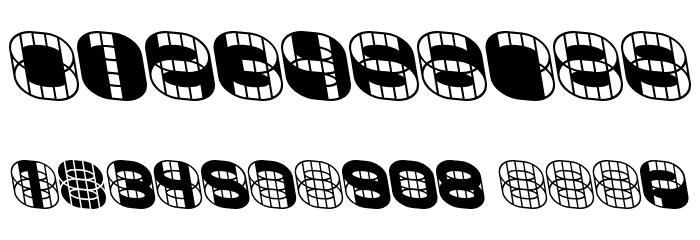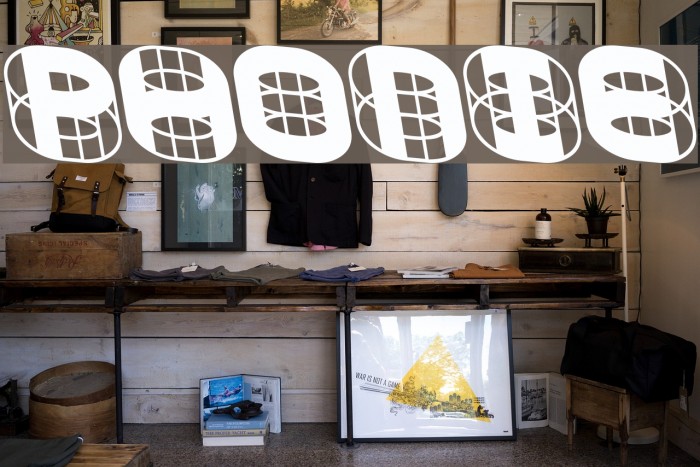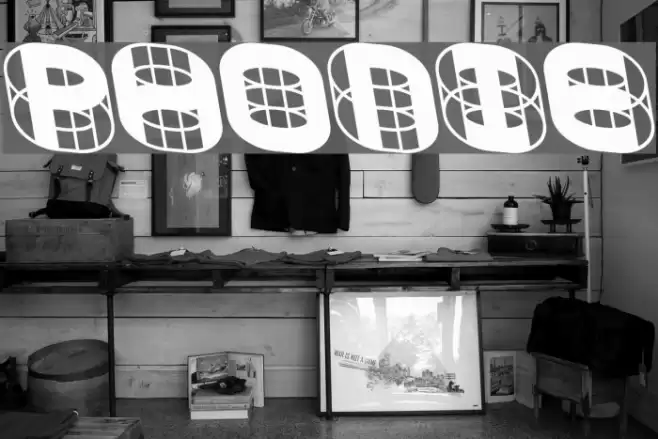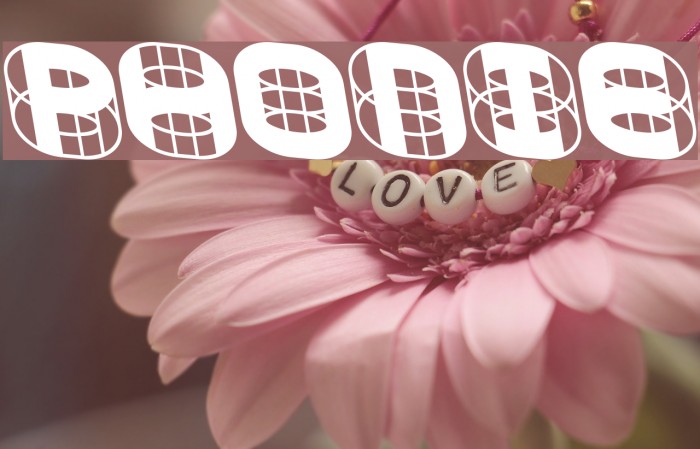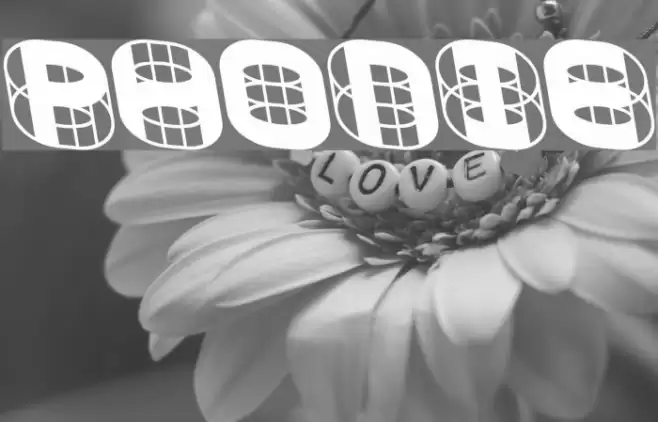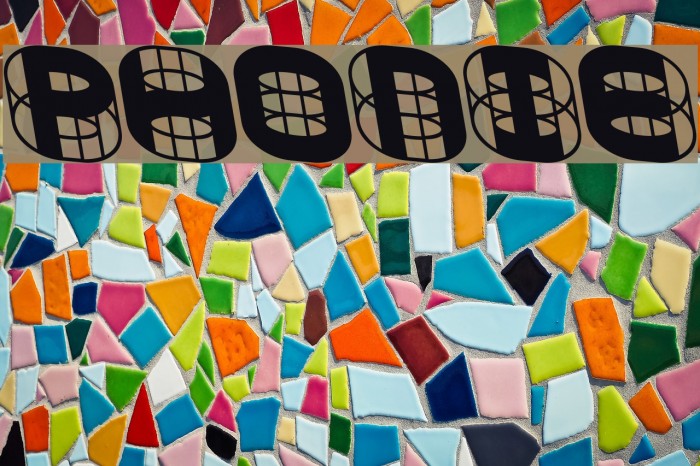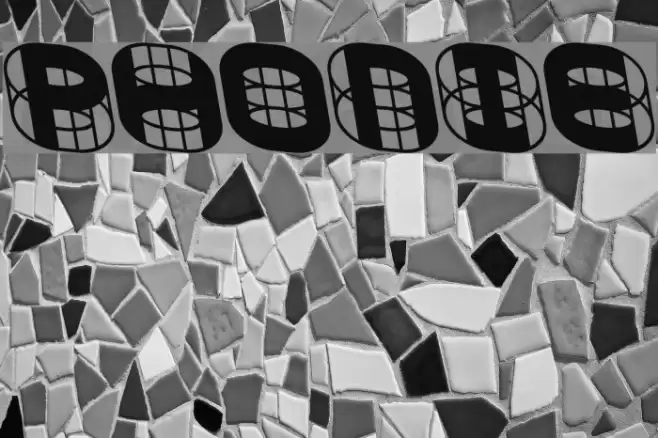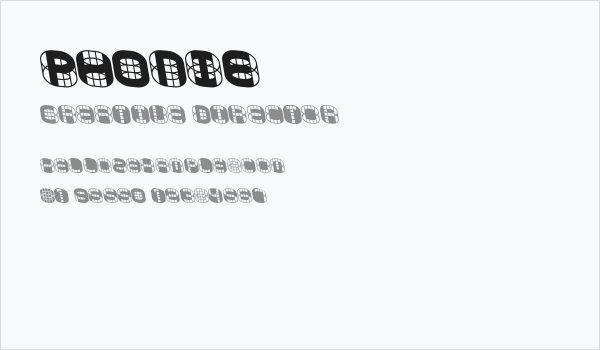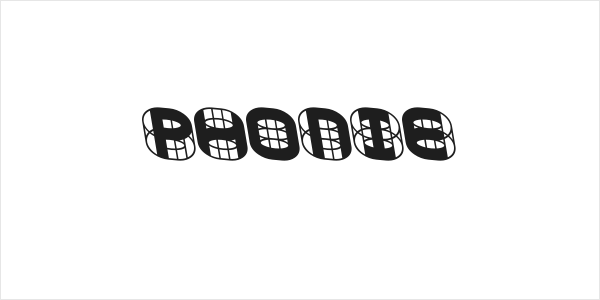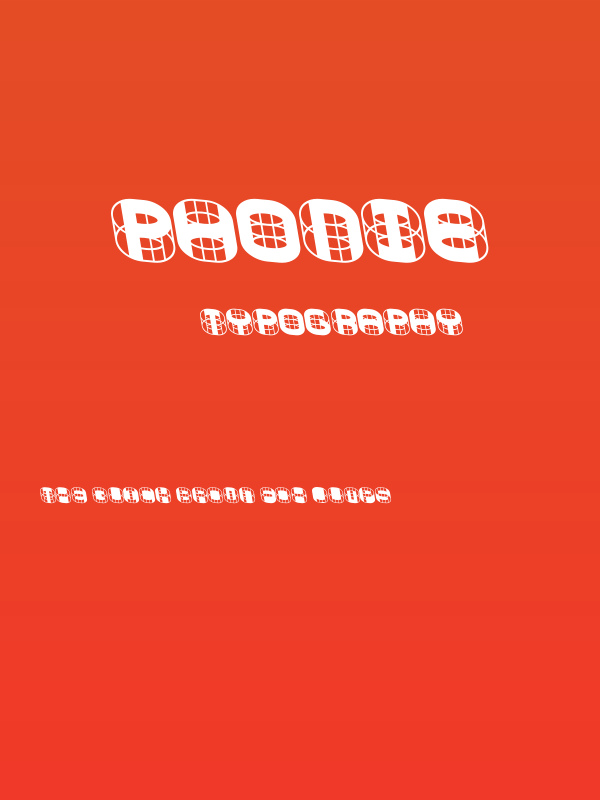
PHONIE Font
PHONIE Description
This font features a unique and playful design with a bold, rounded structure. Each character is enclosed within a circular or oval shape, giving it a distinctive, almost cartoonish appearance. The interior of the characters is filled with a grid-like pattern, adding a sense of depth and texture. The overall look is both modern and whimsical, making it stand out in any design. The boldness of the font ensures high visibility, while the intricate patterning provides an artistic flair. This font is perfect for projects that require a fun and engaging visual element.
| Overall Style | Modern, Whimsical |
| Proposed Projects | Ideal for children's books, playful branding, posters, and creative digital content. |